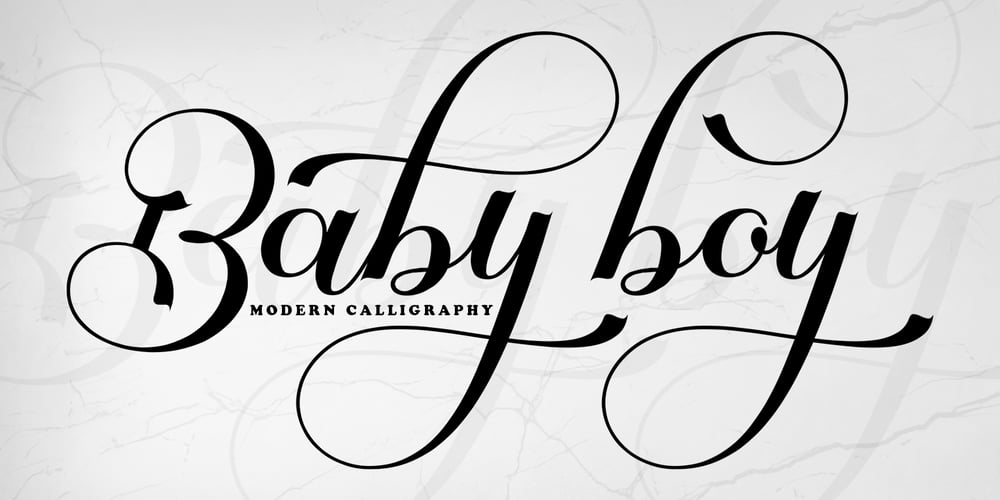
Baby Boy Font Family was designed by Wais Alqarni and published by Ws Studio. Baby Boy contains 1 styles and family package options. Baby boy – Elegant calligraphy font is a sweet, romantic calligraphy typeface with interesting characters along basic lines. It has a casual yet elegant touch. It can be used for various purposes such as logos, wedding invitations, titles, t-shirts, letterheads, name boards, labels, news, posters, badges etc.The font includes OpenType features with alternative styles, ligatures, and multiple language support.To activate the alternative OpenType Stylistic, you need a program that supports OpenType features such as Adobe Illustrator CS, Adobe Indesign & CorelDraw X6-X7, Microsoft Word 2010 or a later version.There are additional ways to swap / swap, using Character Map (Windows), Nexus Fonts (Windows), Font Book (Mac) or a software program such as PopChar (for Windows and Mac).How to access all alternative characters, using Windows Character Map with Photoshop.How to access all alternative characters using Adobe Illustrator.How to use a stylized font set in Microsoft Word 2010 or a later version.